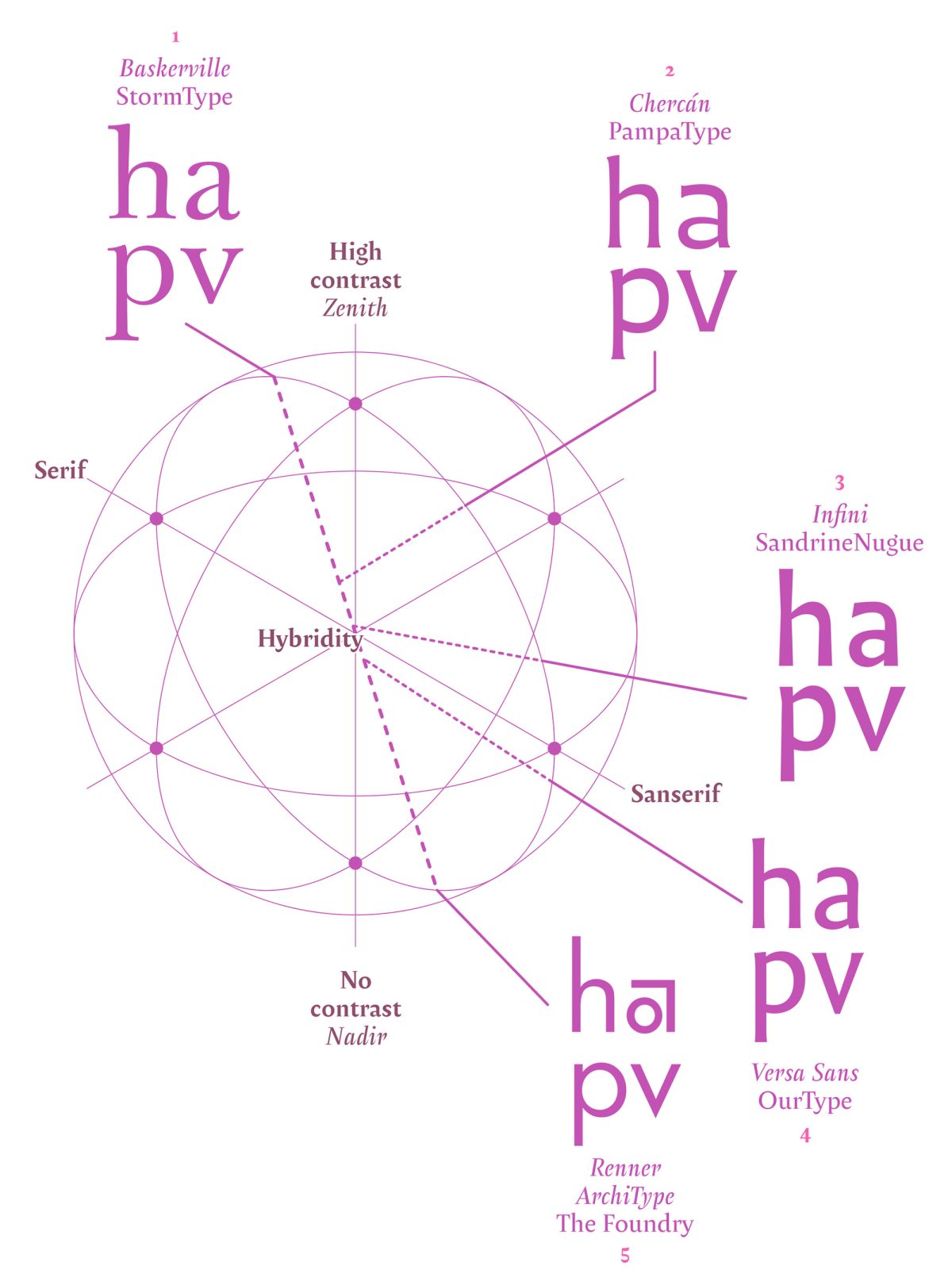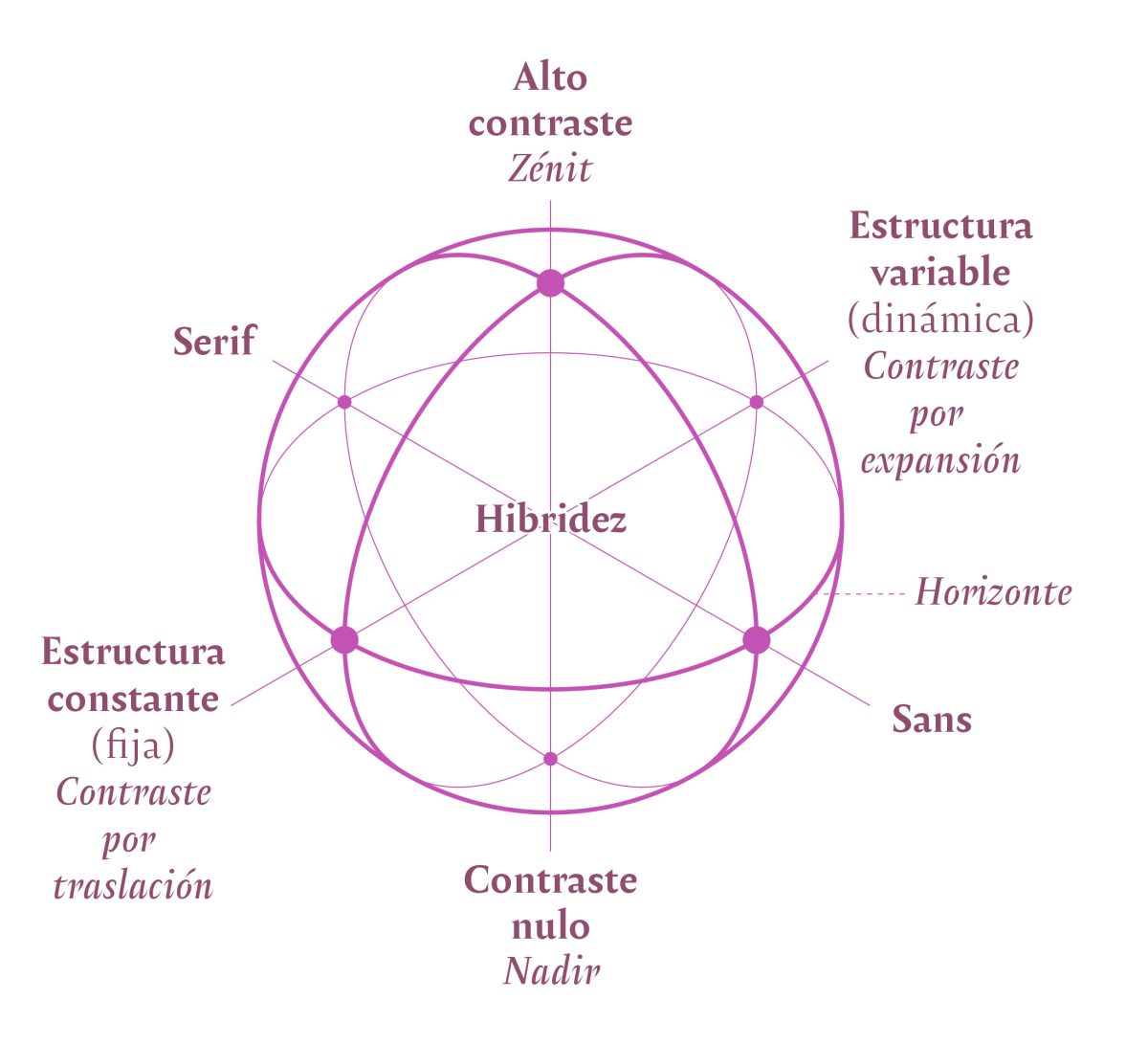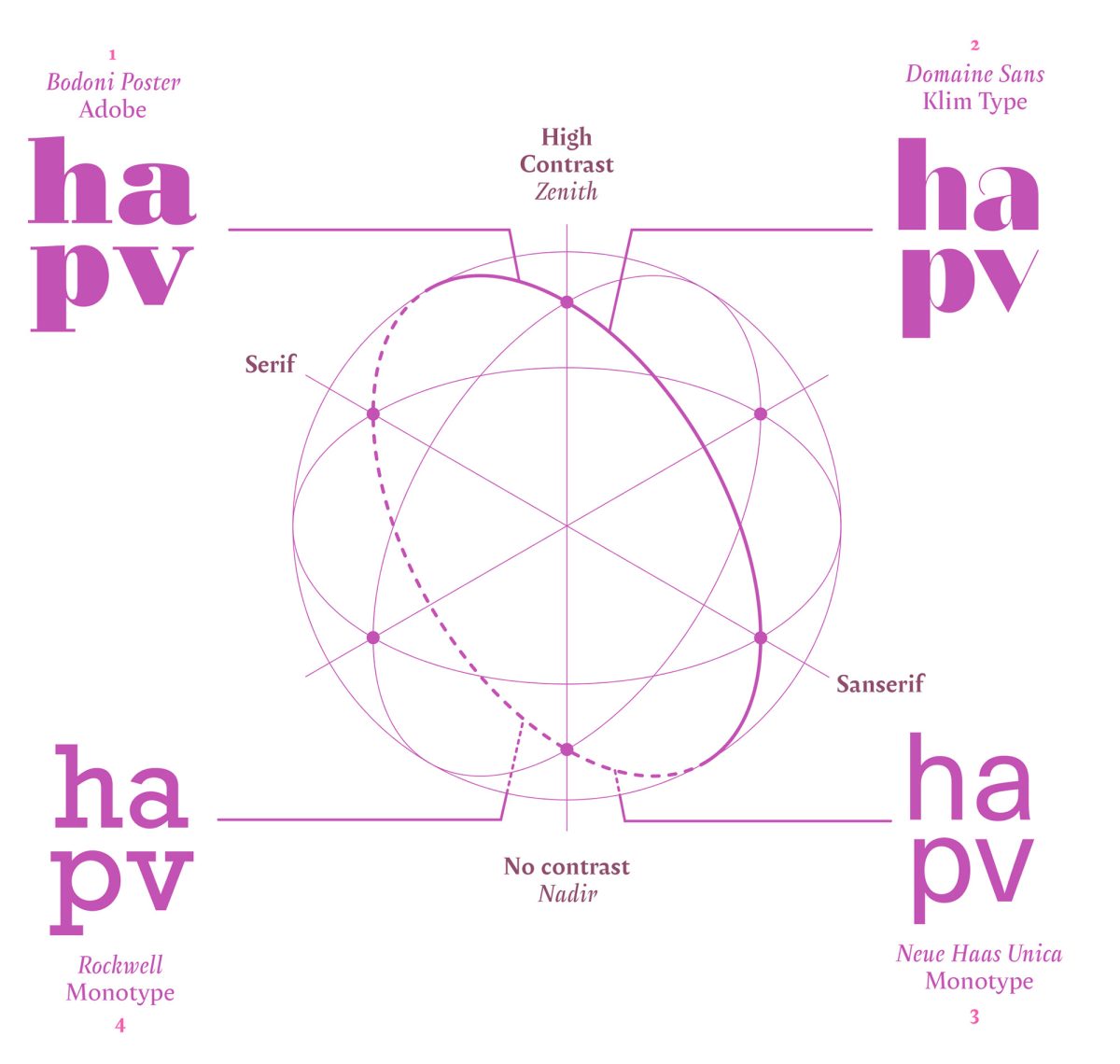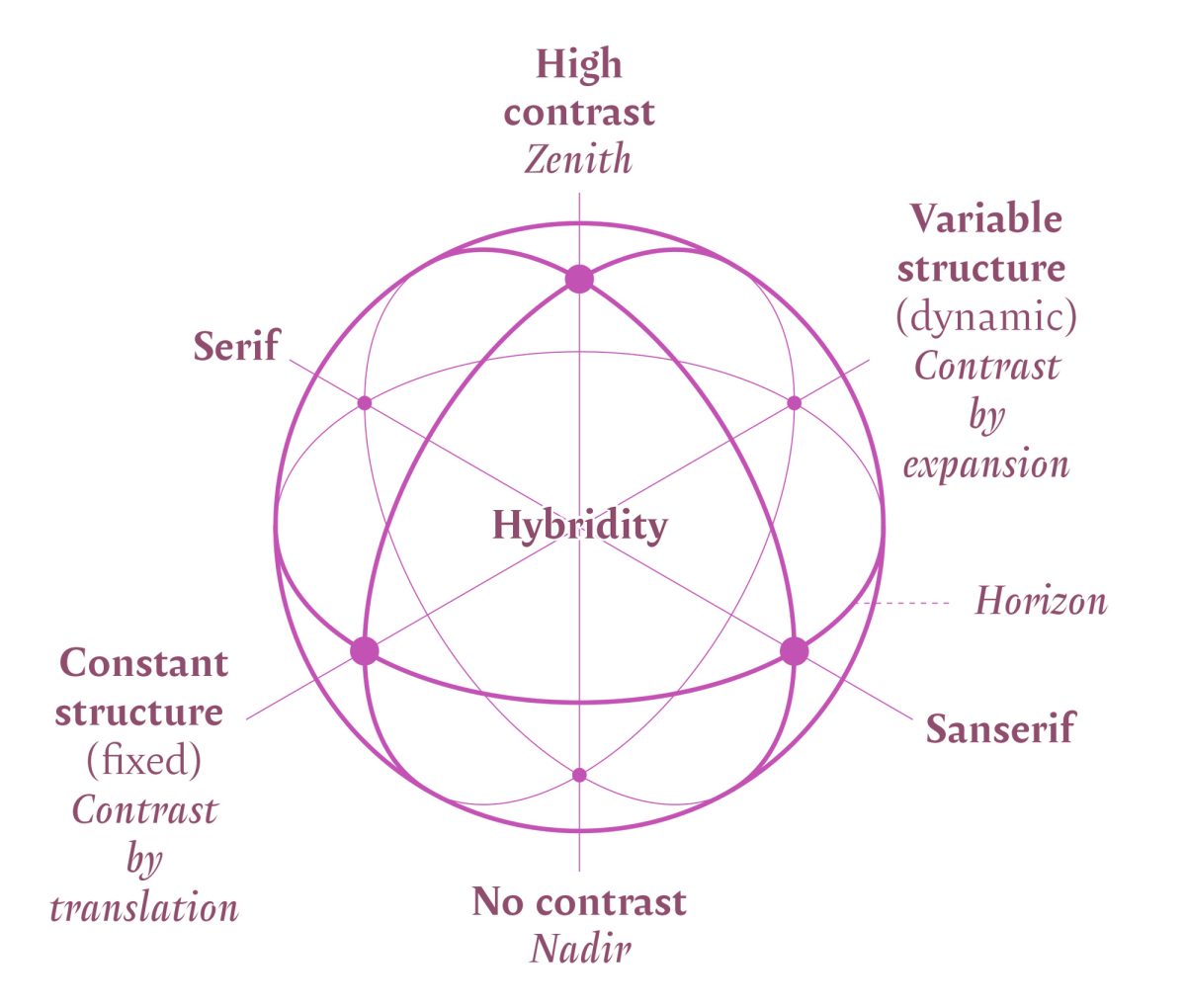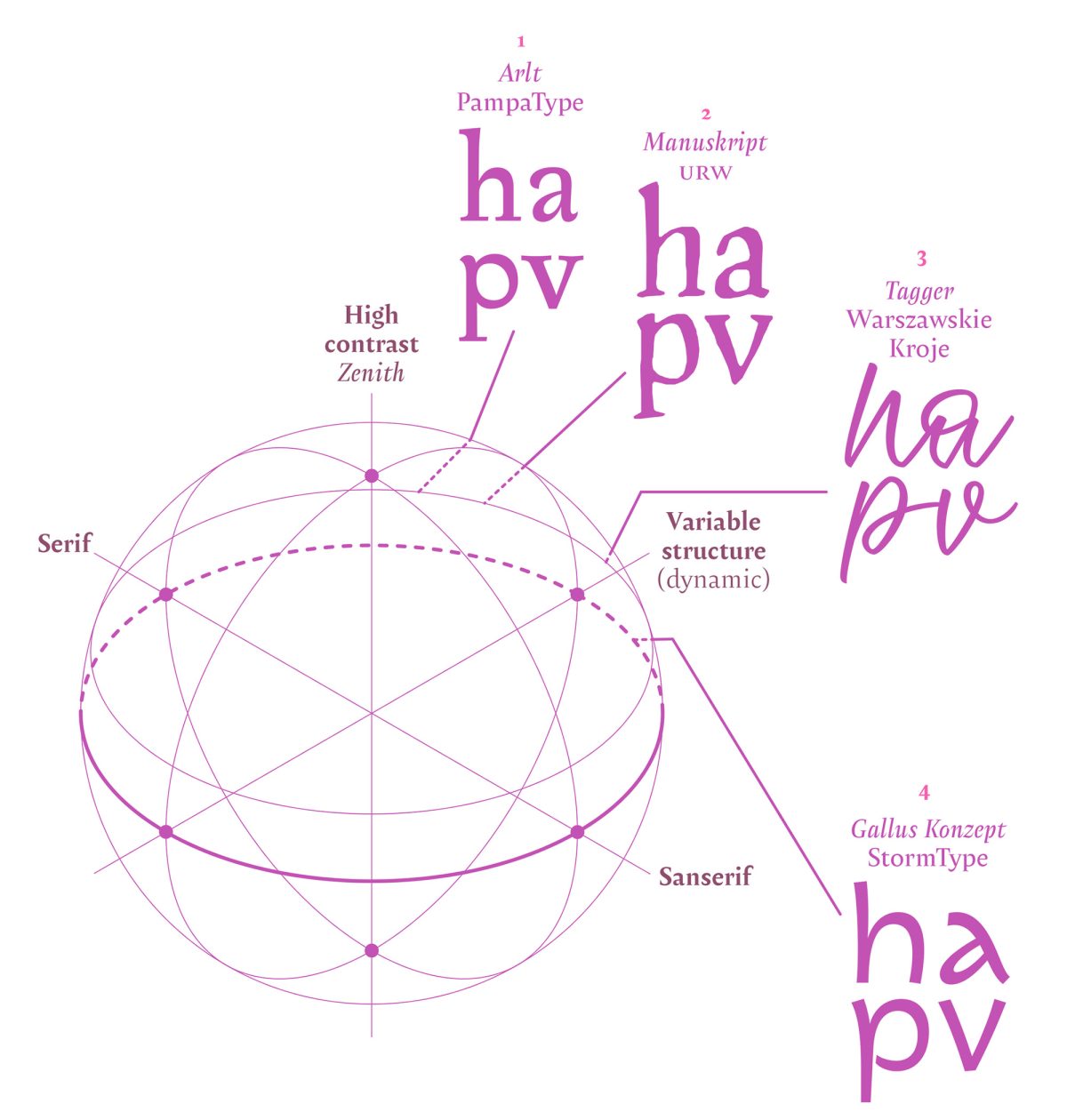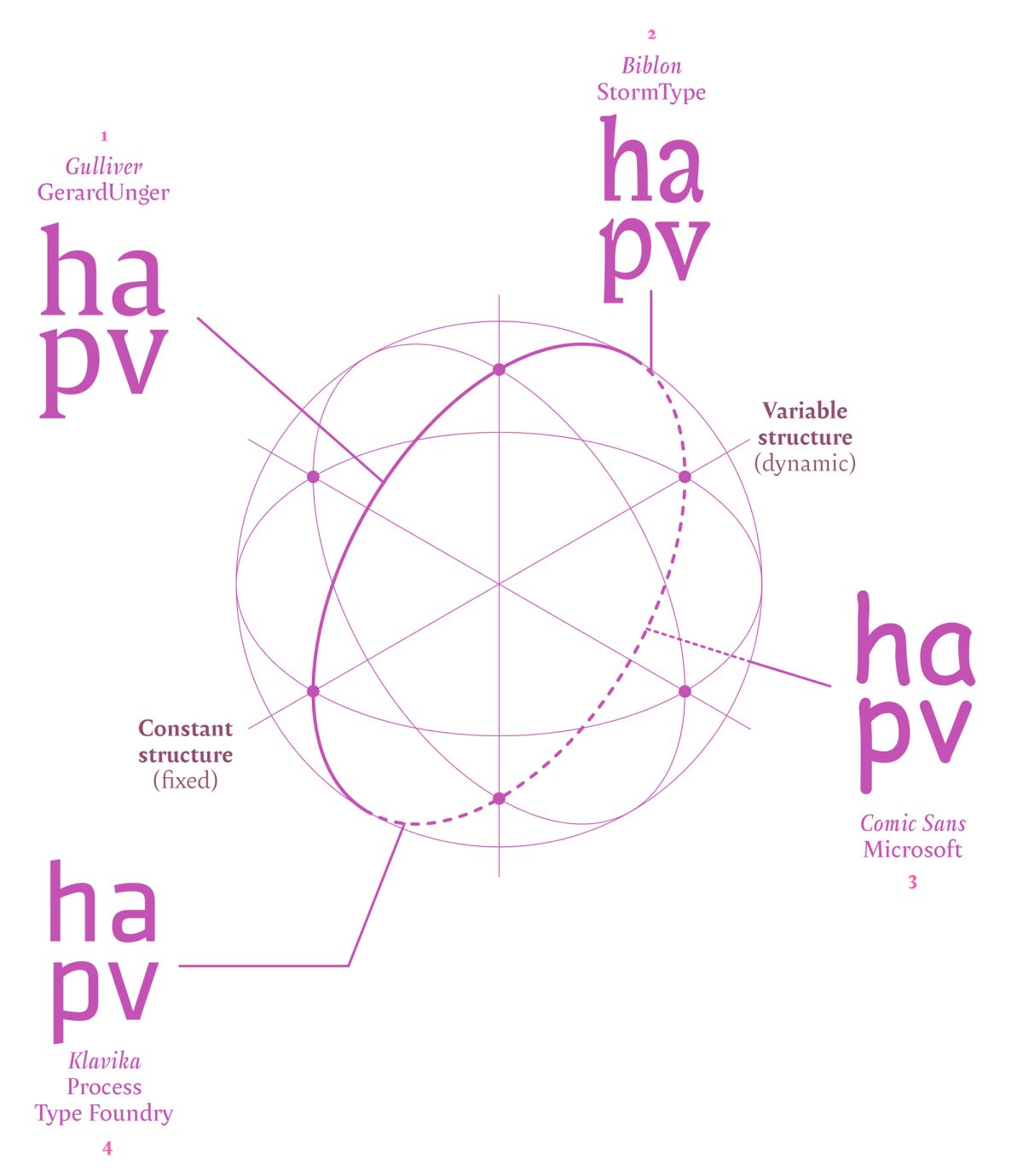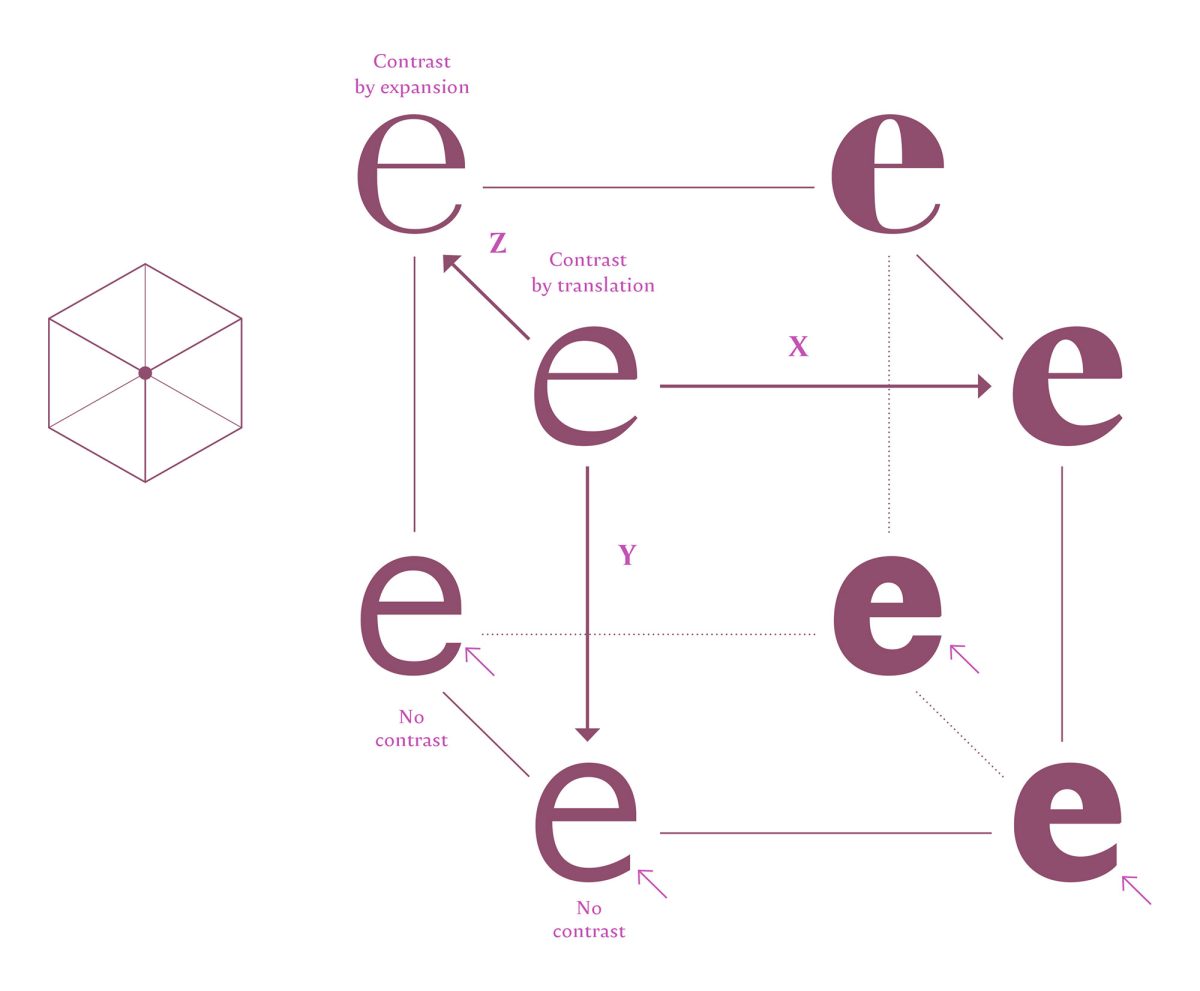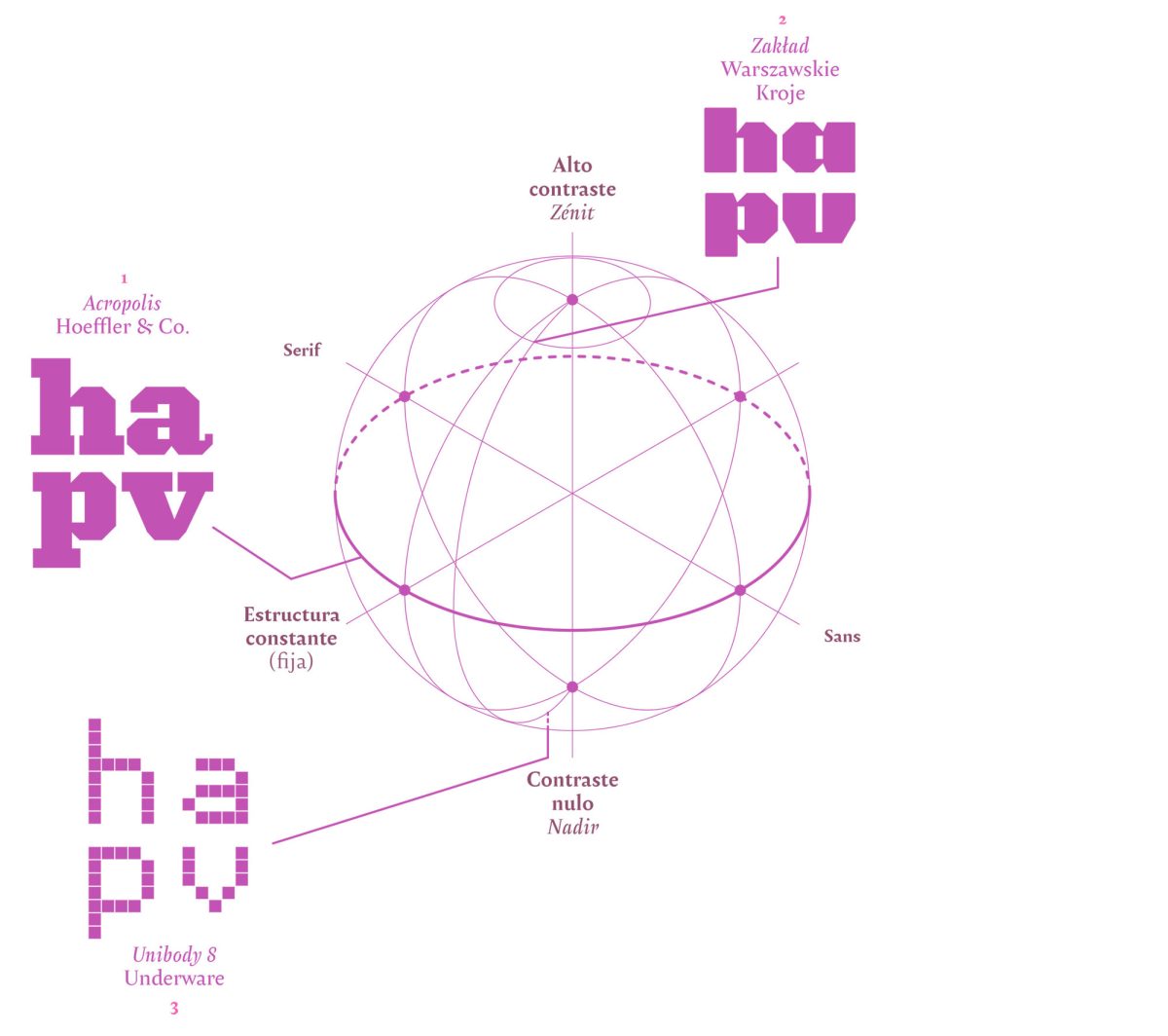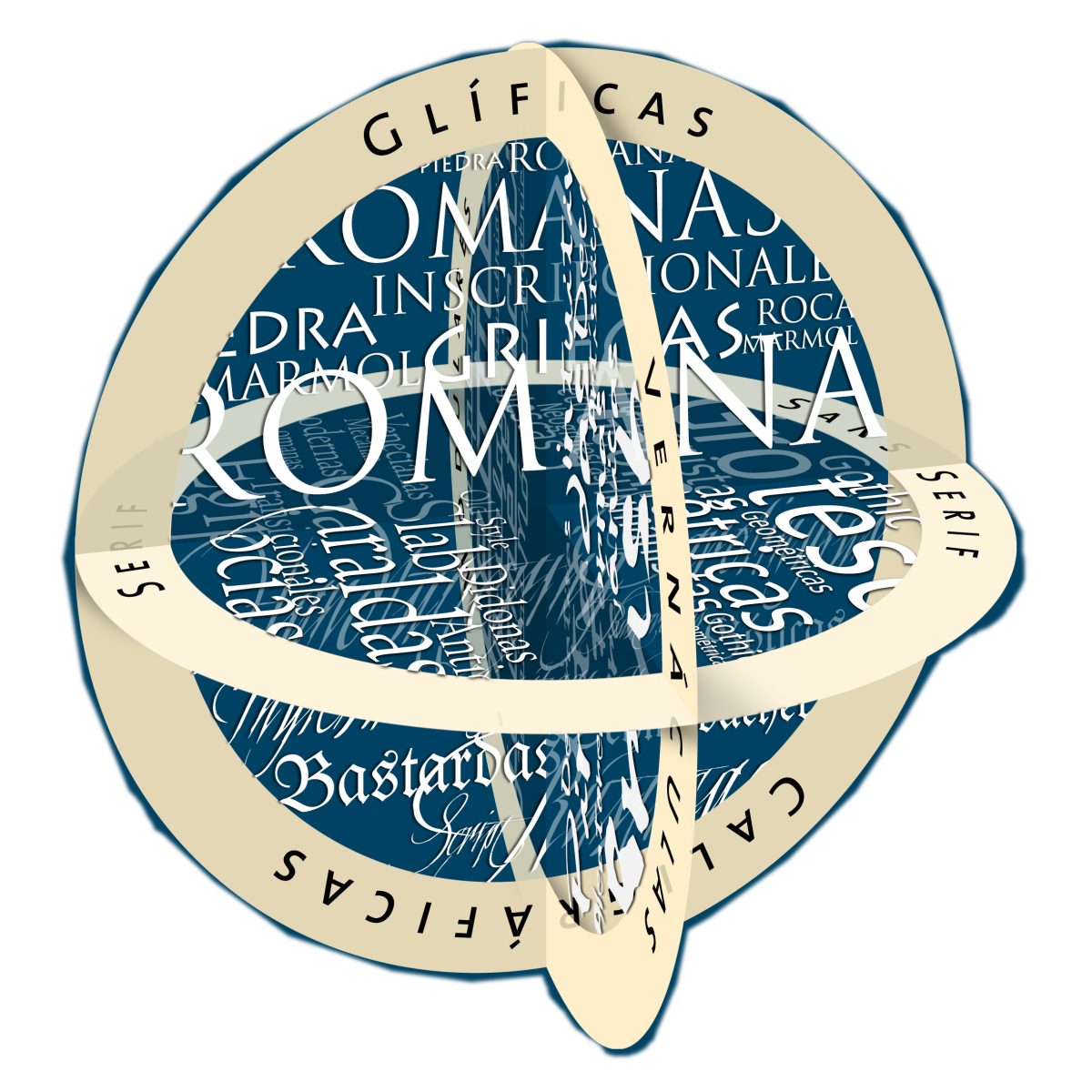
The Typographic Vault. An invitation to contemplate a constellation of typefaces
Francisco Gálvez presents to us his daring reattempt at a type categorization, a much broader and versatile one, more suitable to our times. The author rethinks the values of preceding classifications and reinterprets them in a new model, one that does not seek to be a classification in itself but an original instrument to situate and study the diversity of today’s typefaces.
The troubles with classifying
Ever since the production of typefaces underwent industrialization, there’s always been a stubbornness to incorporate all types available into a single classification. An initiative that has been abandoned due to the proliferation of designs that merge styles indiscriminately. The best-known classification –made by Maximilien Vox– has survived possibly thanks to its adoption by the Association Typographique Internationale (ATypI) in 1962 and the British Standard in 1967. In spite of this, said classification does not include contemporary designs.
This is not a subject that attracts the attention of designers in general, but classifications are a necessity if you want to understand a complexity, a mnemonic device to remember formal characteristics by name. When the first experimental fonts that trumped existing categories emerged in the nineties (there were some that did that before, only not massively), the reaction was to create new groups, albeit not in a good way. An example of this is Lewis Blackwell’s book 20th Century Type. Remix, from 1998, that introduces two groups to incorporate the fonts which are unclassifiable within the Vox model: one is ‘Contemporary’ and the other ‘BC. Beyond Classification’. Even though the attempt is appreciated what one can analyze about it is not very useful.
Also used, as a way of categorizing groups, are concepts that remit to the connotation transmitted by the stylistic shape of a letter, but this has always been a problem because shapes not always represent the same idea; they can be interpreted, reinterpreted or erroneously interpreted, ultimately, arbitrary. Examples of this are the collections obtained by keyword searches in Internet such as: Groovy, terror, modern, techno, psychedelic, retro, grunge and who knows what other terms.
Left: Two fonts named ‘Antique’ that cause misunderstandings in its connotation: R. Excoffon’s Antique Olive and Antique by Vincent Figgins. Right: different executions of ‘gothic’ styles, proof that it is not only related to the Middle Ages or Germany. Top to bottom: Fakir by Underware, Burgundica by G. Noordzij, and Vega Fraktur by Rodrigo Valenzuela.
We are not dealing with a current issue. In the first classifications, such as Francis Thibaudeau’s (1921-1924), the word ‘Antique’ («old» in French) was employed to refer to the serif-less or linear shapes, which has spawned names that nowadays don’t make sense, such as Antique Olive (1962) by Roger Excoffon or in previous years to refer to quadrangular serifs as in Antique (1815) by the Figgins foundry. Could you imagine in entomology the use of criteria such as the degree of scariness that bugs have on people? Well, something similar happens when a bunch of designs are labeled with ideas. This is to communicate not to classify, besides stereotypes are generated that limit the graphic resources for the design of a message.
An idea that seems reasonable is that a classification must focus on defining a shape in order to pin it down, which is a trap because language has problems when attempting to accurately describe the particularities of letterforms. The task of assigning a meaning so that most people interpret it is an exercise in visual communication. A side issue that cannot be addressed in a couple of sentences, although many examples exist of how a same letter shape can represent different ideas. Such is the case of the gothic or blackletter. All of us Westeners have a more or less cliché idea of what a gothic letter is: mainly, that it is associated with the Middle Ages or that it is a type of letter that comes from Germany, but when its history is revised we find out that it was used in several places in Europe, especially in France. Despite of having appeared in the XII Century, nowadays there’s dozens of applications. We can see it in Death Metal bands, in lettering in trucks and rural buses of South America or in football supporters’ flags. Thus the shape of gothic letters does not intrinsically represent the Middle Ages or Germany, since its been resignified in different contexts.
This is why it is hard to classify by meaning.
The now archetypical image of Gerrit Noordzij’s cube.
Noordzij’s cube
What is proposed here does not take into consideration anything new, it is not classifying in a strict sense but a way of covering or navigating the complexity of the style of letterforms. Perhaps in a simpler way and based, in part, in Gerrit Noordzij’s theory on the concept of contrast 1 (or the difference between the thin and thick parts of a same letter) generated by the manipulation of pens and pencils. In his book The Stroke. Theory of writing, Noordzij states (with his passionate and provoking point of view) an interesting theory about the shape of letters according to two main types of contrasts: one generated by the broad nib pen, named ‘contrast by translation’ and another that is obtained via the pressure of the flexible nib pen, designated ‘contrast by expansion’. A third kind, ‘contrast by rotation’, in which both previous types coexist, but let us keep things simple, let’s stay with these two ideas.
Even though the purpose of the type configuration presented here is not to replace said theory, it does seek to establish new questions. In this sense, the contribution of what is exposed in Noordzij’s book is essential to this proposal and is far from being complete.
Furthermore, we cannot forget the idea set forth by Alan Turing in 1952, regarding that every model is a simplification and an idealization and due to this fact it will always be a falsification. In spite of this models remain to be useful when they are internalized.
How to understand thousands of styles
Firstly there are some concepts that need to be clear so that they allow us to navigate through Noordzij’s theory which is an important part of the arrangement proposed here and that I’ve named «The Typographic Vault». There are three formal phenomena in the thickness of letters (Y and Z axes) with their respective progressions in several steps or interpolation. There’s also an X axis, that comprises the increment of the stroke as it moves towards a more pronounced thickness.
1. Gerrit Noordzij is a Dutch designer that wrote a text in 1982 entitled The stroke of the pen: fundamental aspects of western writing in which he explains the constructive nature of the stroke. ↩
2. This book was originally written in French: La Typographie au Tableau Noir (Typography on a blackboard), in 1984. ↩
3. ‘Constellations of Typefaces and Configurations of Texts’, topic published in 1982 in an anthology about typography entitled De plomb d’encre, et de lumière by the Documentation Française. ↩